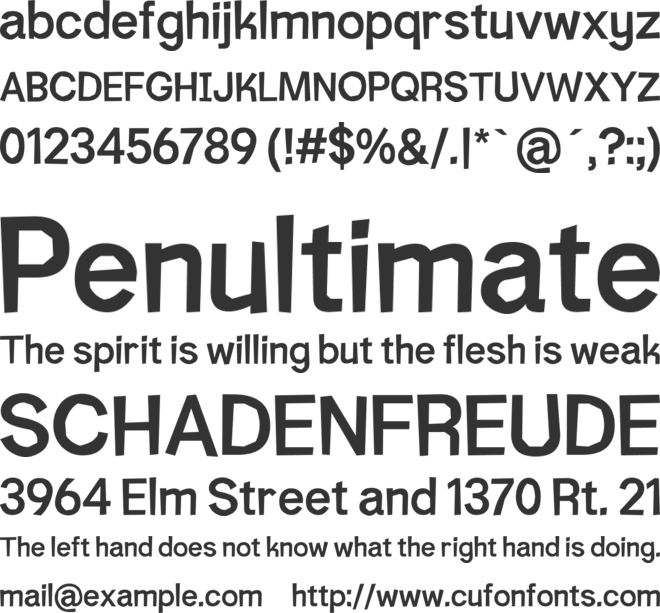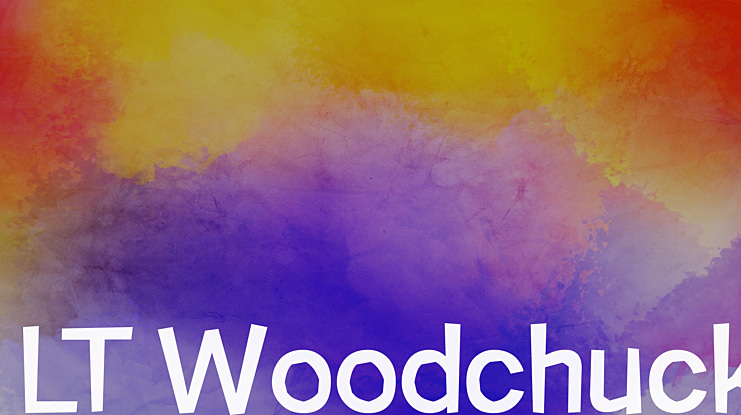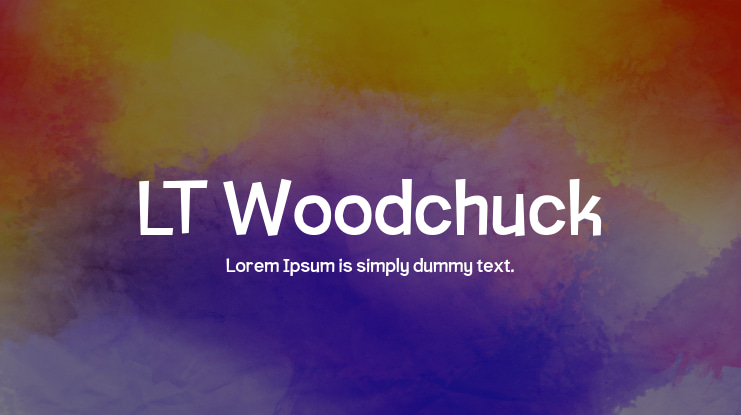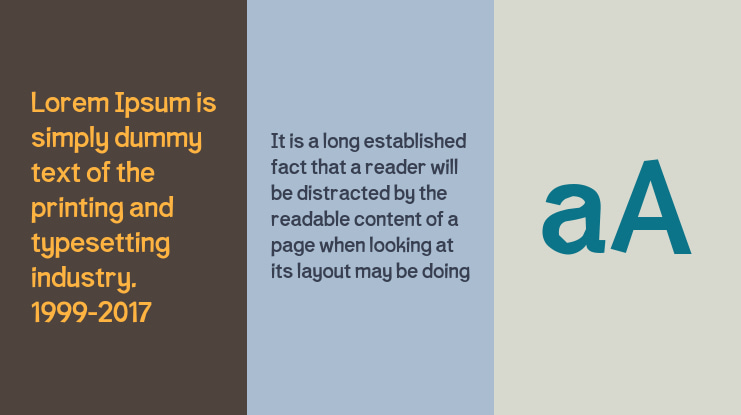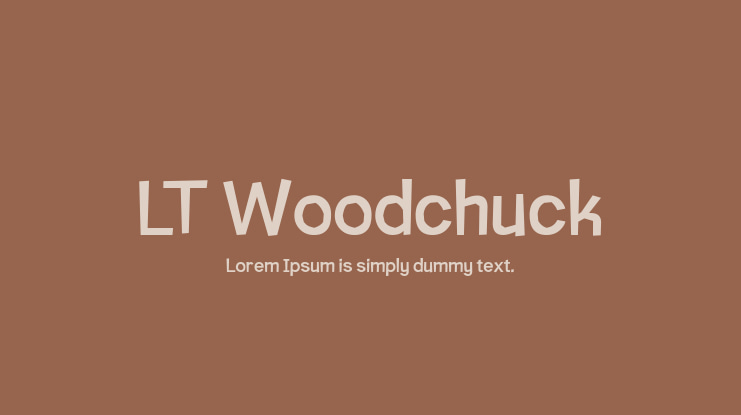
LT Woodchuck Font Family
Dan P. Lyons
Introducing "Woodchuck" from LyonsType. An Adlib-esque, construction paper-esque font to resemble what you'd see what's carved on a tree trunk. In the perspective of the designer of this font, it can also be useful for cartoons set in the '50s, '60s, or '70s, including anything whimsical, funky, cartoony, and so on. Please enjoy.